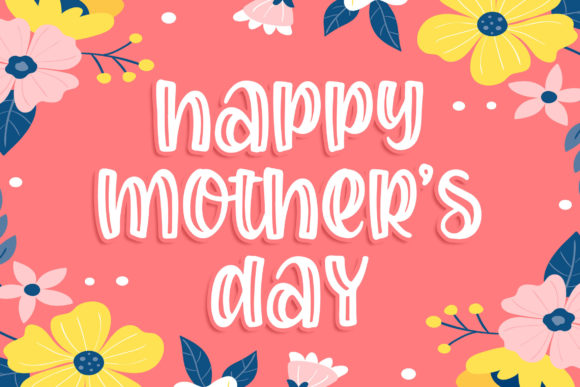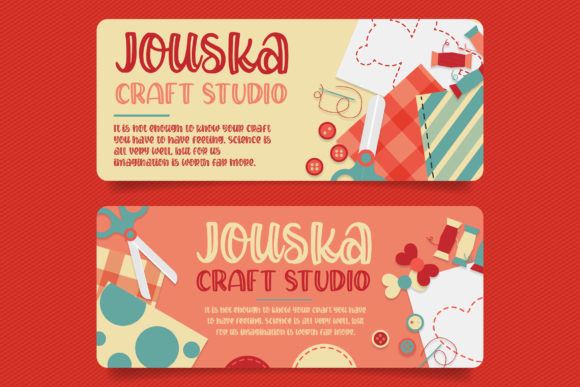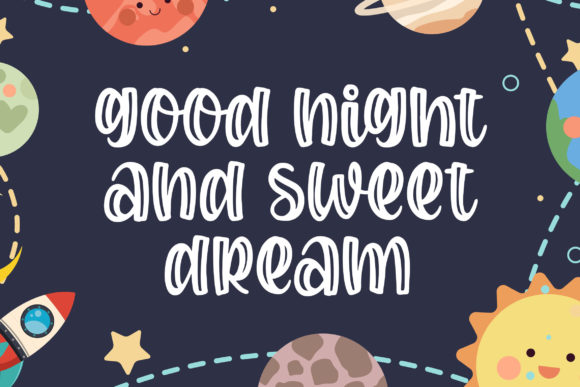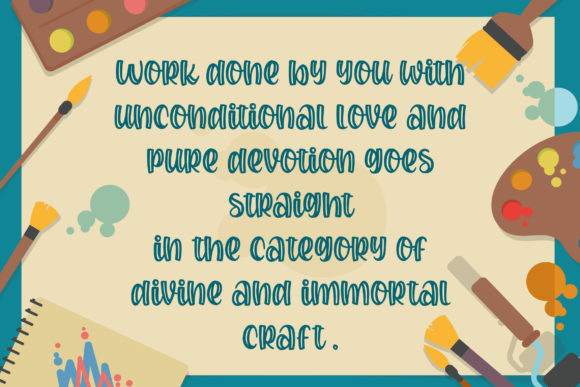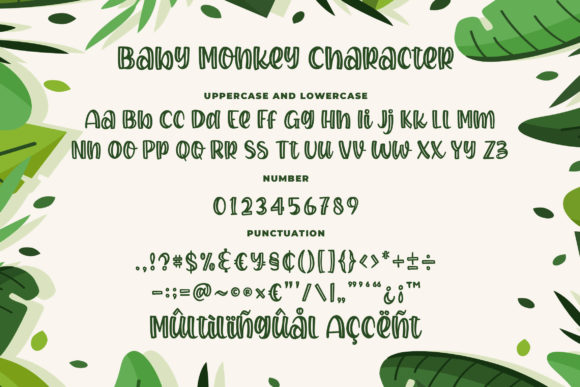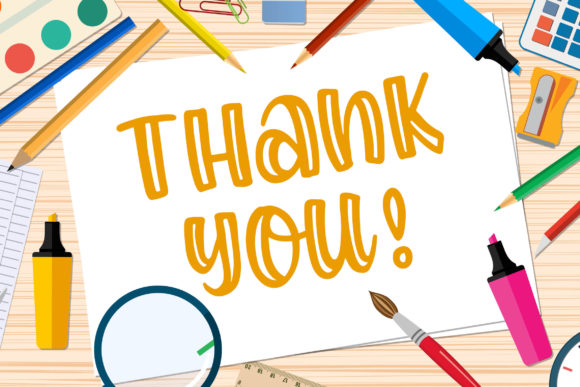
Baby Monkey Font: Unleash Fun and Quirkiness in Your Designs
In the world of typography, fonts play a crucial role in bringing creativity and personality to any design project. If you’re looking for a font that embodies fun, quirkiness, and authenticity, look no further than the Baby Monkey Font. This enchanting display font is perfect for designers and crafters who want to add a touch of childlike playfulness to their work.
The Charm of Baby Monkey Font
Baby Monkey Font is a unique and captivating typeface that is sure to turn any creative idea into a true standout. Its playful and whimsical design makes it an ideal choice for kids and school projects, as well as any design project that requires a dash of fun and personality. With its irregular shapes and bouncy curves, Baby Monkey Font is sure to bring a smile to anyone’s face.
Key Features of Baby Monkey Font
- Fun and Quirky Design: Baby Monkey Font boasts a playful and whimsical design that is sure to add a touch of personality to any project.
- Childlike Playfulness: This font’s childlike playfulness makes it perfect for kids and school projects, as well as any design project that requires a dash of fun and creativity.
- Authentic and Unique: Baby Monkey Font is a one-of-a-kind typeface that is sure to make your design stand out from the crowd.
- Display Font: This font is perfect for headlines, titles, and any other display text that requires a bold and eye-catching design.
Uses of Baby Monkey Font
Baby Monkey Font is a versatile typeface that can be used in a variety of design projects, including:
- Kids and School Projects: This font is perfect for kids and school projects, such as posters, flyers, and brochures.
- Party Invitations: Add a touch of fun and quirkiness to your party invitations with Baby Monkey Font.
- Social Media Graphics: Use this font to create eye-catching social media graphics that are sure to grab attention.
- Branding and Packaging: Baby Monkey Font can be used in branding and packaging design to add a touch of personality and whimsy.
Tips for Using Baby Monkey Font
Here are some tips for using Baby Monkey Font in your design projects:
- Use it Sparingly: Baby Monkey Font is a bold and eye-catching font, so use it sparingly to avoid overwhelming your design.
- Pair it with Other Fonts: Pair Baby Monkey Font with other fonts to create a unique and visually appealing design.
In conclusion, Baby Monkey Font is a fun and quirky typeface that is sure to add a touch of personality and whimsy to any design project. Its childlike playfulness and authentic design make it perfect for kids and school projects, as well as any design project that requires a dash of fun and creativity. With its versatility and ease of use, Baby Monkey Font is a must-have for designers and crafters who want to unleash their creativity and bring a smile to their audience’s face.